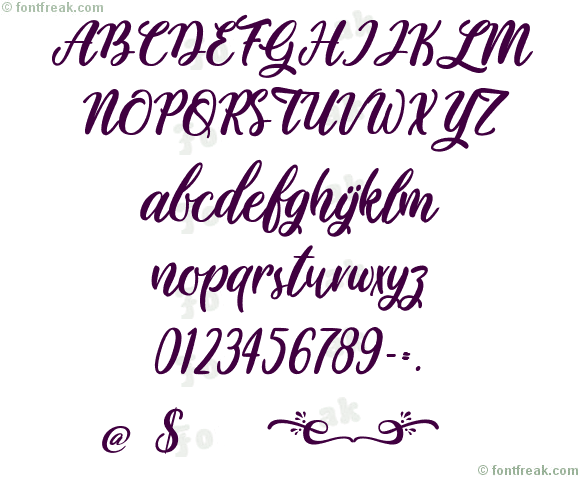
Plastic Beauty Light
Plastic Beauty
Plastic Beauty Light is a captivating script font designed by Suthi Srisopha, falling under the decorative category. This font exudes a sense of elegance and playfulness, making it a versatile choice for various creative projects. With its light stroke weight and moderate contrast, the letters have a fluidity that enhances readability while maintaining a whimsical charm. The spacing between characters is thoughtfully designed, ensuring clarity without sacrificing style. Decorative elements, such as graceful curves and swashes at the end of some strokes, add a unique flourish that sets this font apart.
Best suited for wedding invitations, greeting cards, restaurant menus, and promotional materials, Plastic Beauty Light can elevate any design by introducing a touch of sophistication. It’s particularly effective in contexts where a personal or artistic flair is desired, allowing for a captivating visual impact that communicates warmth and creativity. The font resonates well with graphic designers, small business owners, and content creators who are looking to make their projects stand out.
What truly makes the Plastic Beauty Light font remarkable is its ability to blend beauty with versatility. Its elegant yet approachable design allows it to cater to a wide array of applications, ensuring it will complement both modern and traditional aesthetics. Whether you are crafting a heartfelt invitation or designing an eye-catching advertisement, this font delivers a unique character that can enhance your message. For those interested in exploring this enchanting typeface, the Plastic Beauty Light font free download offers an excellent opportunity to incorporate this beautiful font into your design toolkit. Experience the charm and creativity that Plastic Beauty Light brings to your projects and watch your designs come alive.